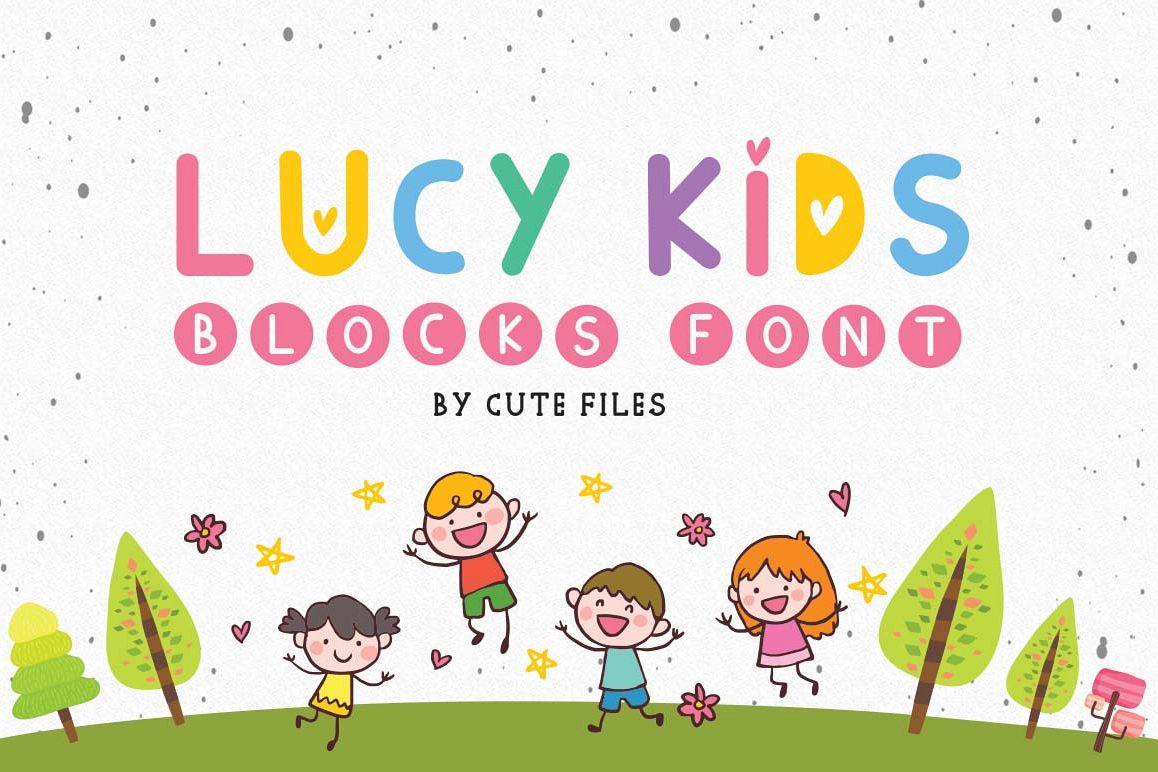
The Lucy Kids font is a duo of fun fonts with hearts and stars and circular blokes that will help you make compositions! Its details of hearts turn it into a special typography for valentines for notes or craft projects.
This is a unique and special source that can help you express the feeling of love for a loved one in a moment as long-awaited as valentines.